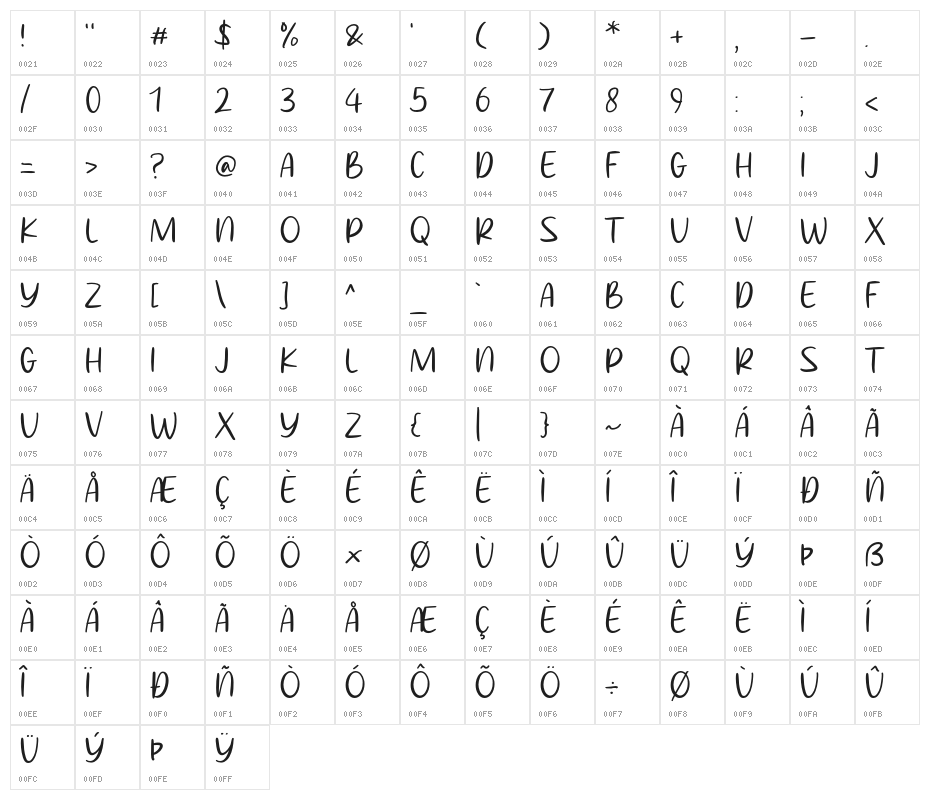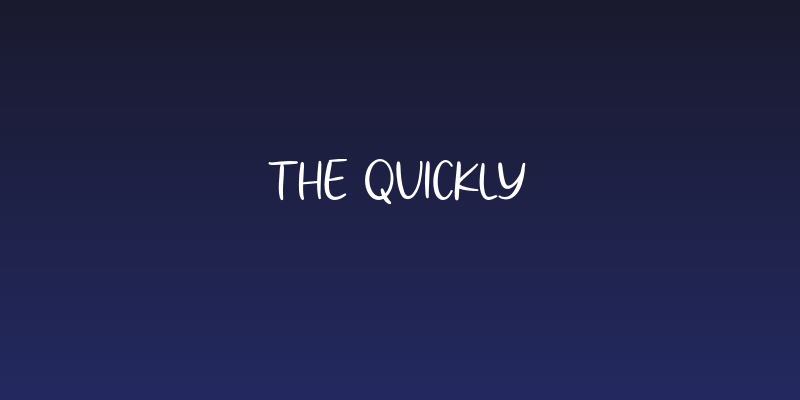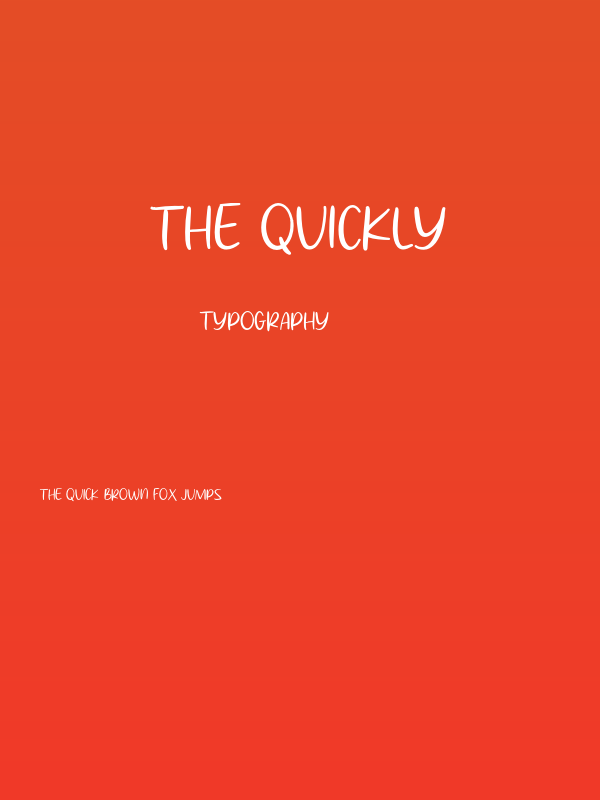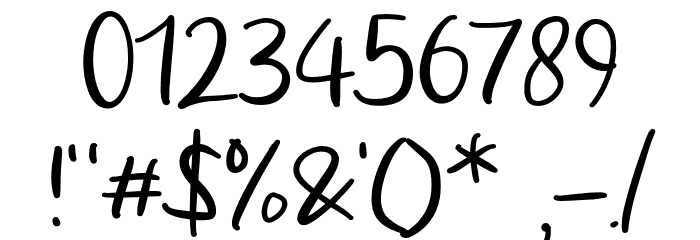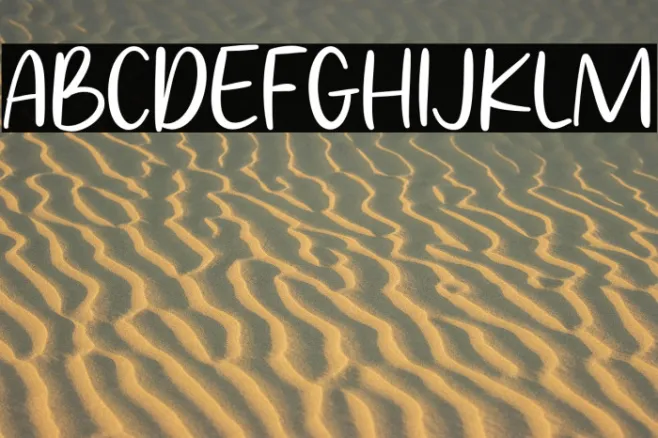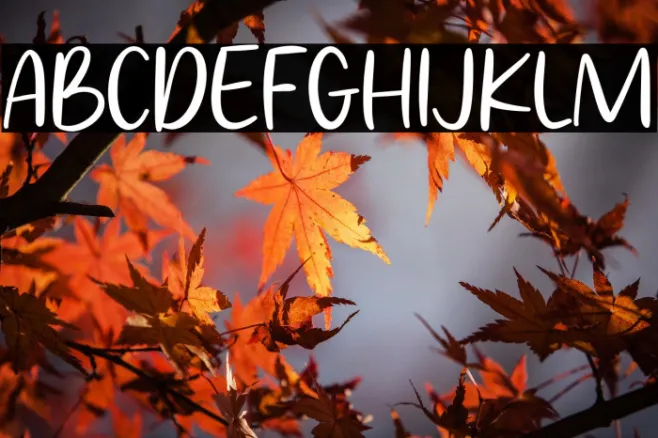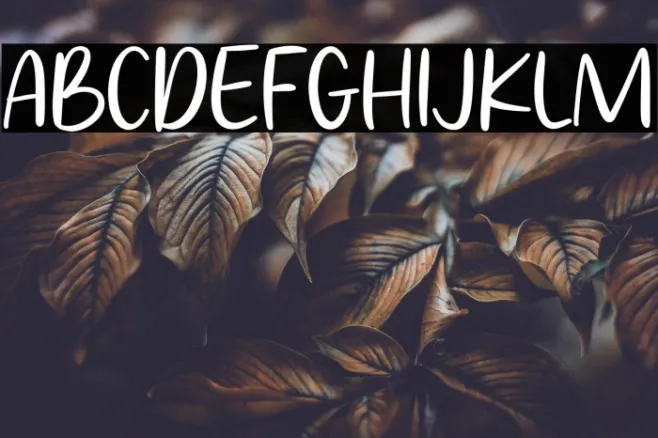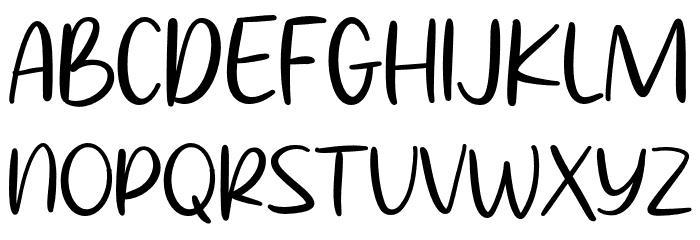
The Quickly Font
The Quickly Description
This font features a playful and casual handwritten style, characterized by smooth, flowing lines and a slightly irregular baseline that adds a personal touch. The letters are well-spaced, providing a clear and legible appearance, while maintaining a sense of spontaneity and warmth. The strokes are consistent in width, giving the font a uniform look, yet the slight variations in letter shapes contribute to its charm. The numbers and special characters are crafted with the same attention to detail, ensuring a cohesive look across all elements. This font is versatile, suitable for projects that require a friendly and approachable aesthetic.
| Use Case | Logos, Headlines, Informal communications |
| Proposed Projects | Ideal for greeting cards, invitations, personal branding, and social media graphics. |